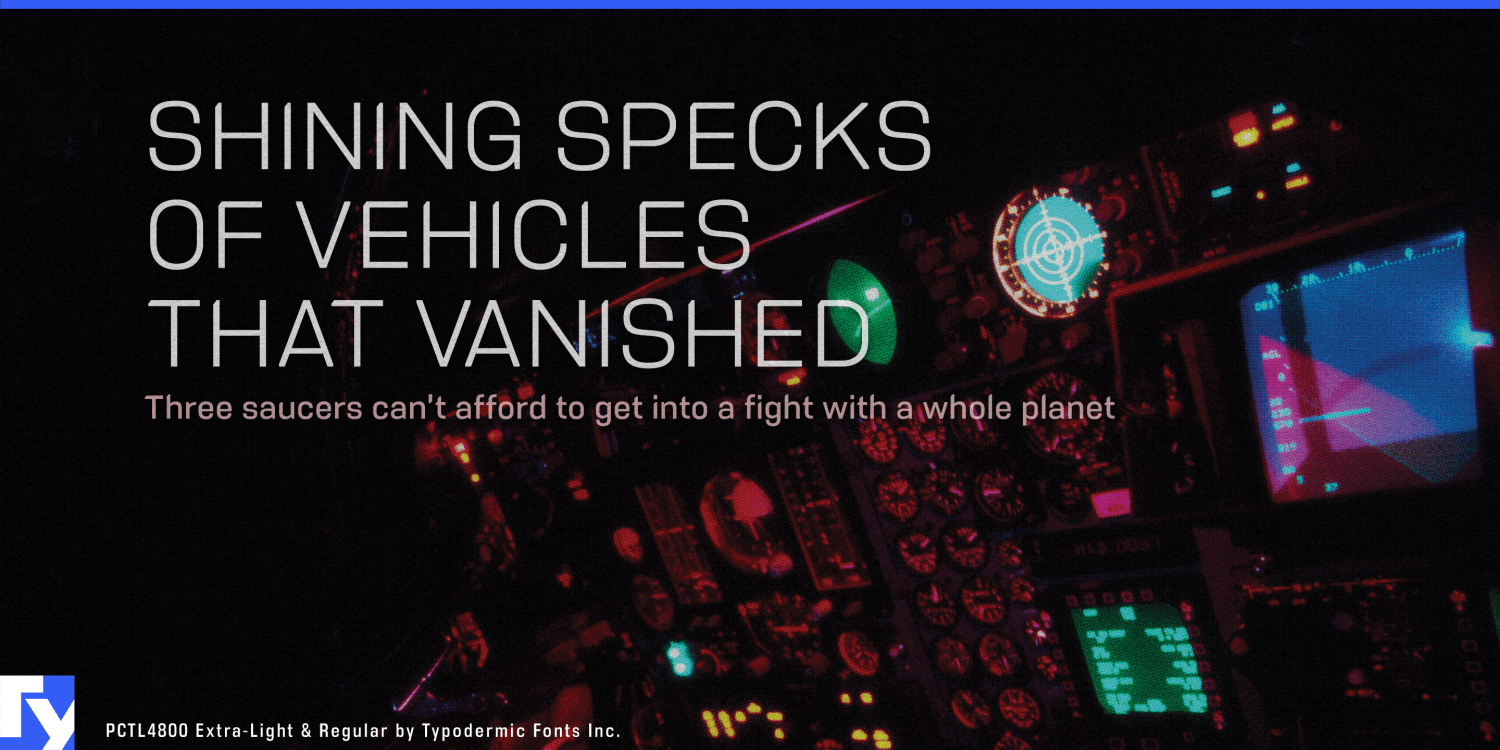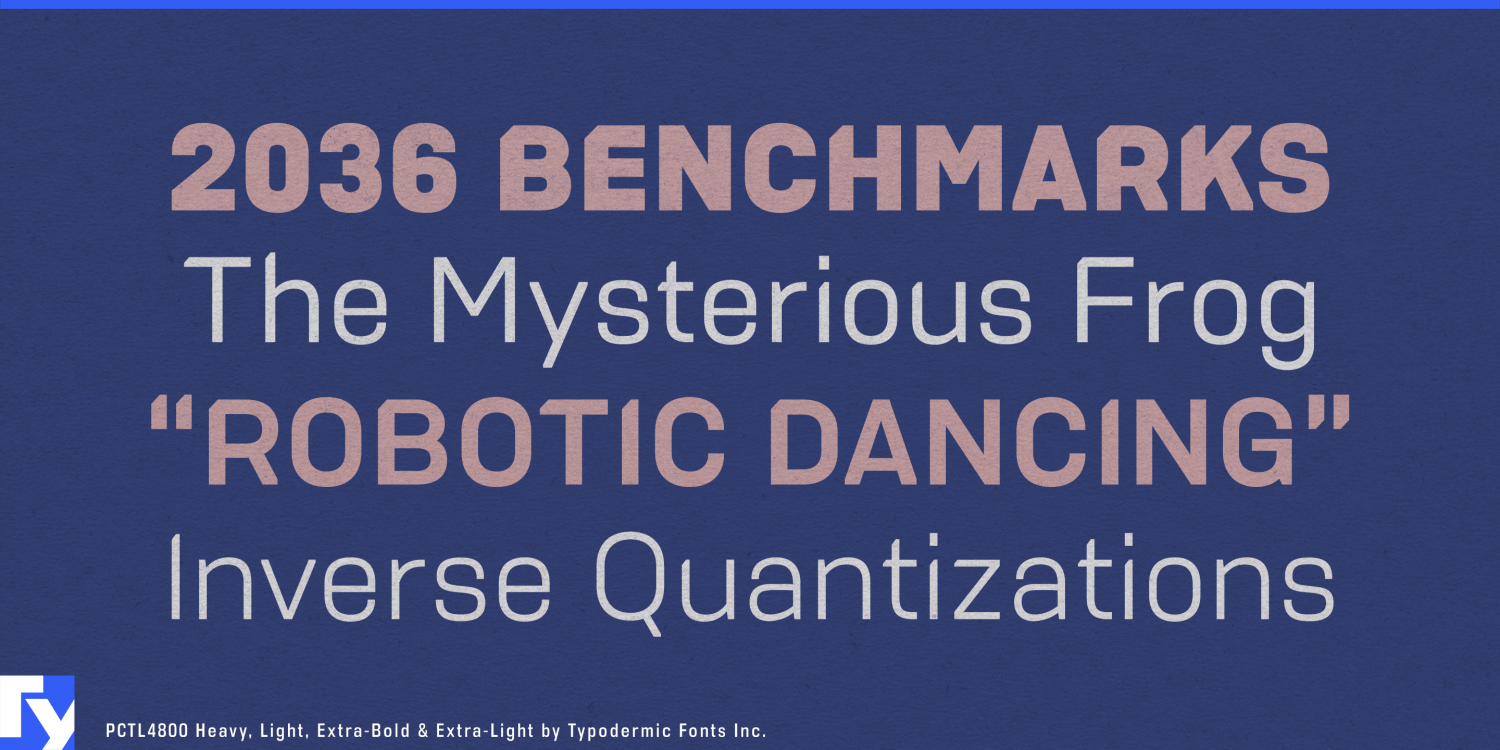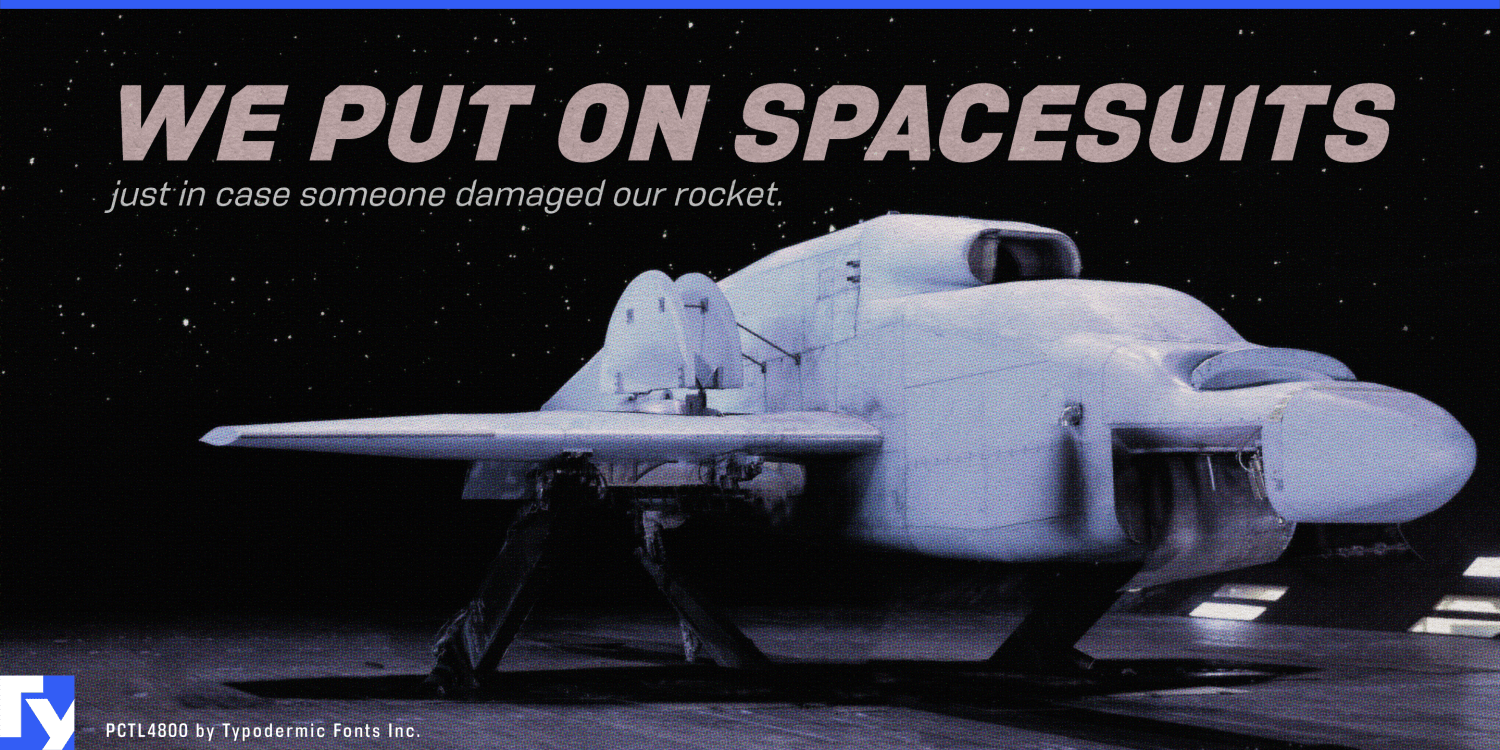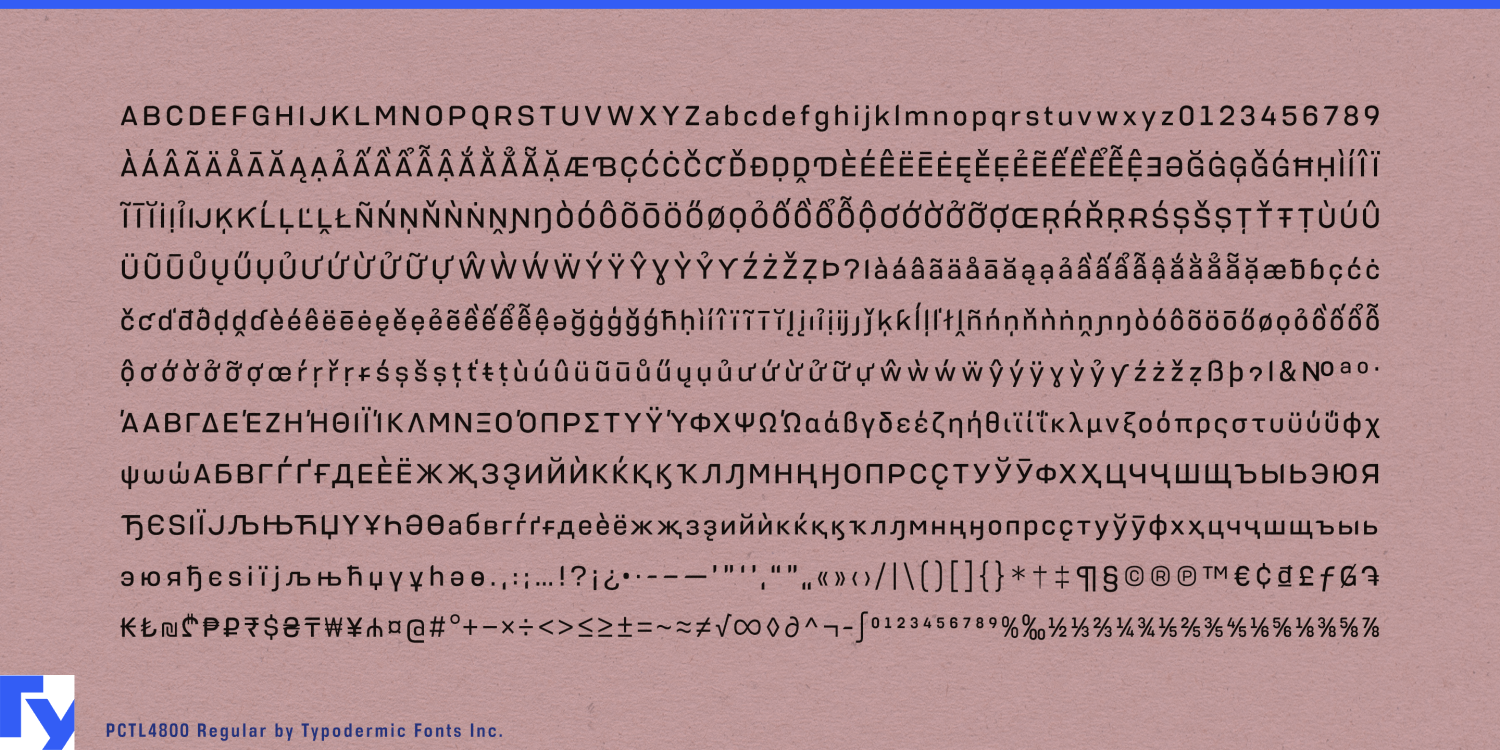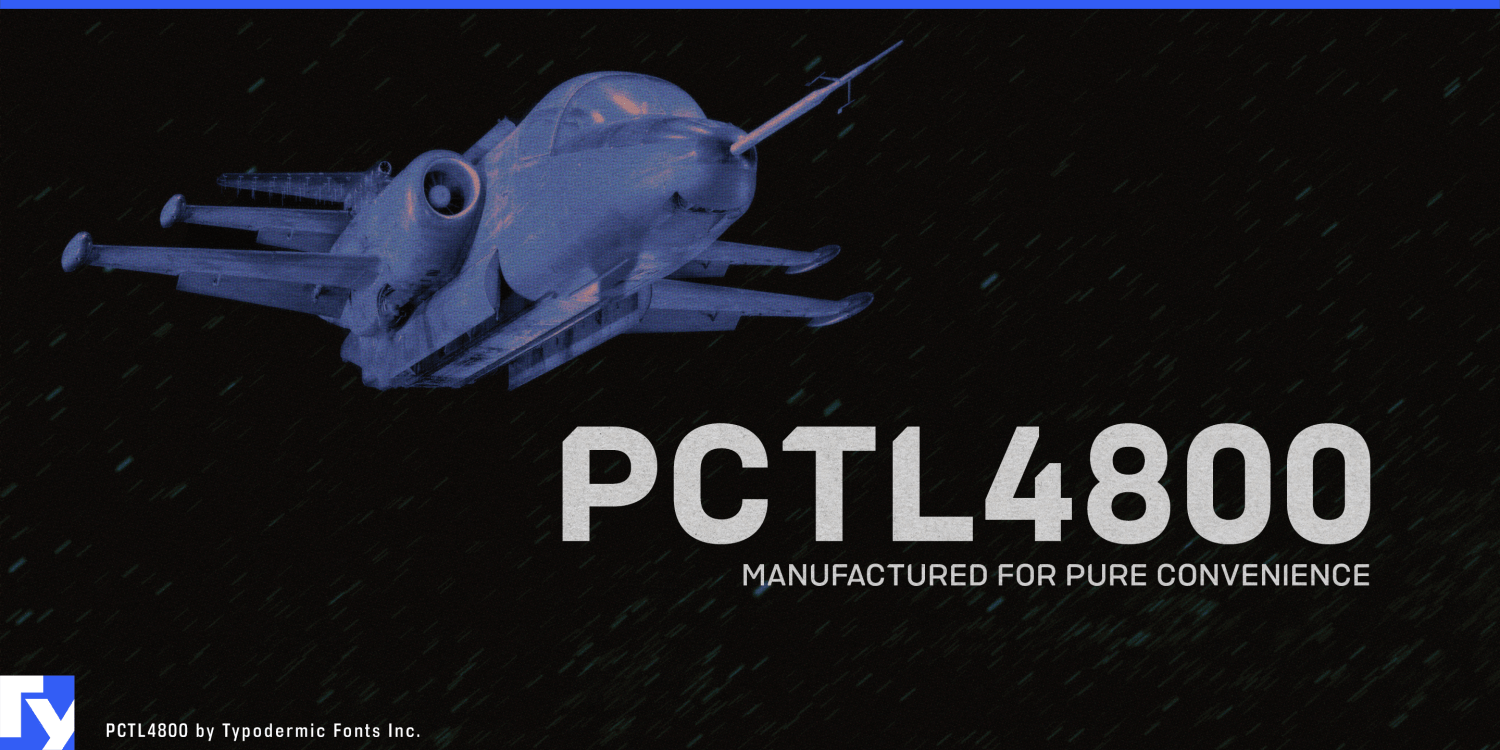
About PCTL4800
PCTL4800 isn’t just another sans-serif—it’s a technical marvel engineered for the discerning designer. This typeface strikes a delicate balance between modernity and timelessness, eschewing vintage nostalgia and technological gimmicks…